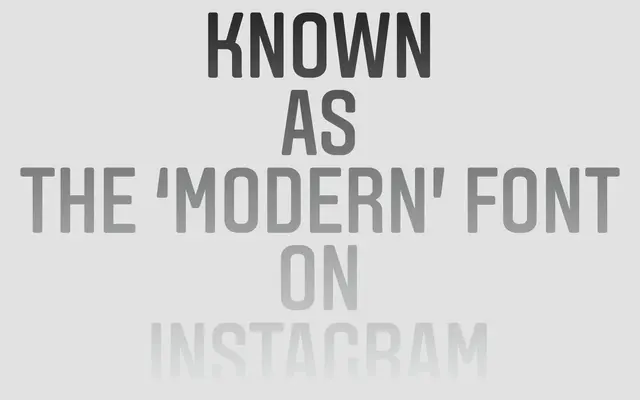
Aveny-T specimen from A2-Type
Originally a capitals-only poster face designed for a Danish theatre in 2000, now expanded into an eleven-weight family with full lowercase.
Drawn from early twentieth-century modernist and avant-garde lettering, the face was first created as a bespoke capitals-only typeface for the Danish theatre Aveny-T. The updated retail release adds lowercase glyphs and a broad weight range running from Ultralight to Ultra, making it usable across both headline and identity contexts. No italics are included, keeping the family firmly in the upright, architectural tradition of its source material.
Inspired by early twentieth-century modernist and avant-garde lettering, Aveny-T sits within the geometric sans tradition, originally conceived as an all-caps display face before being extended with lowercase for retail release.